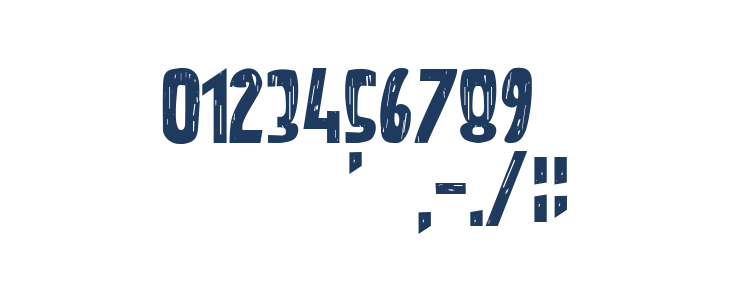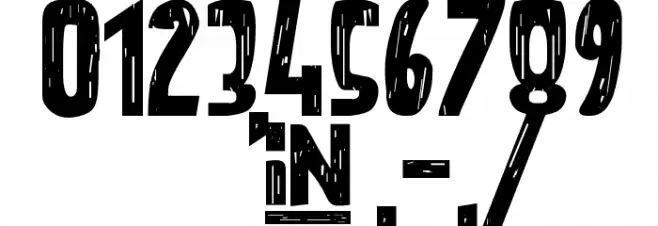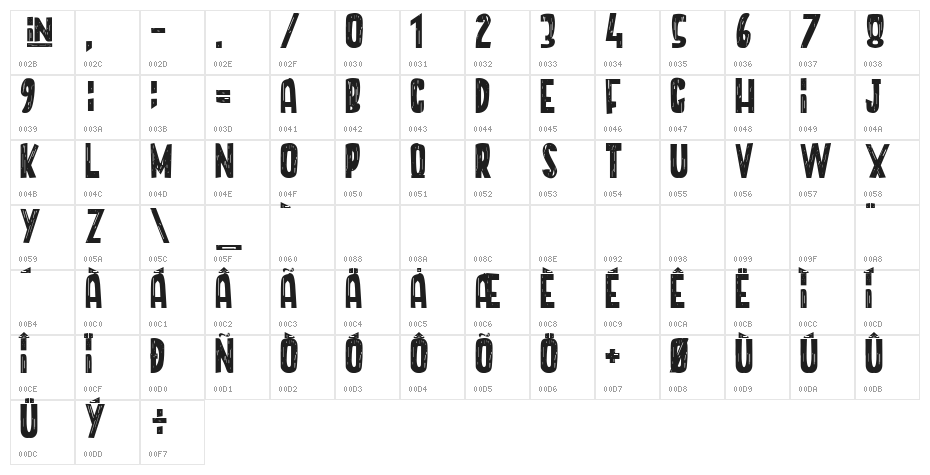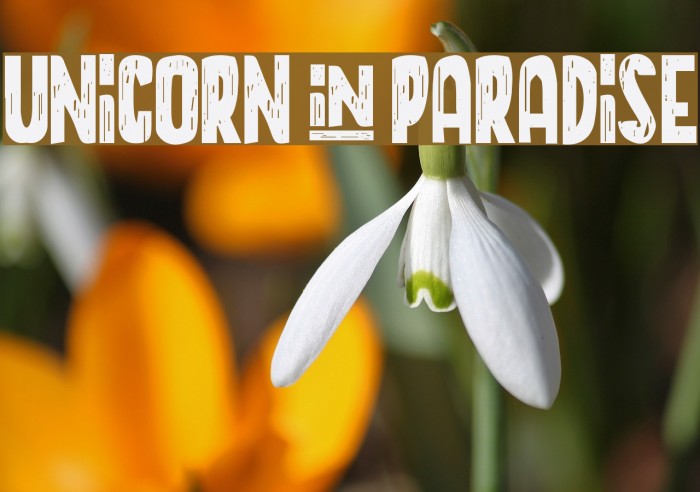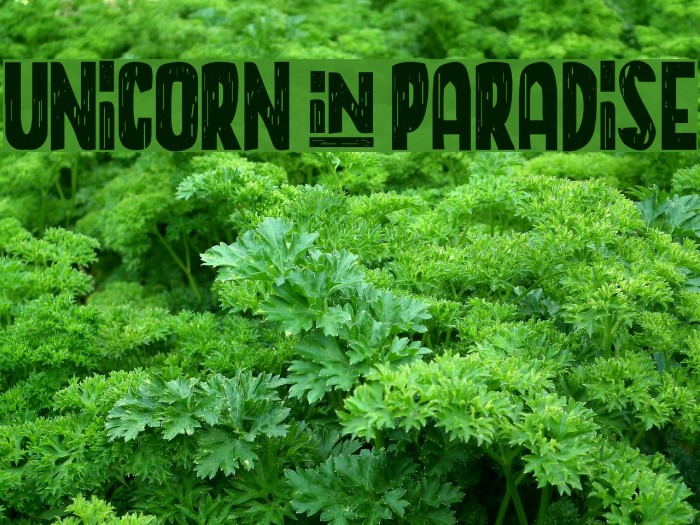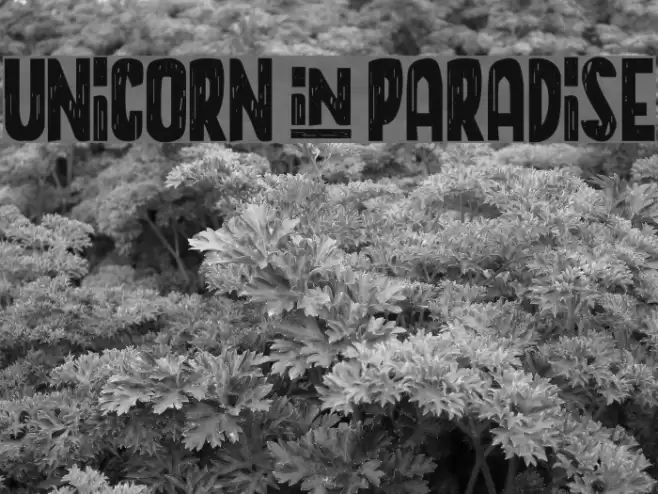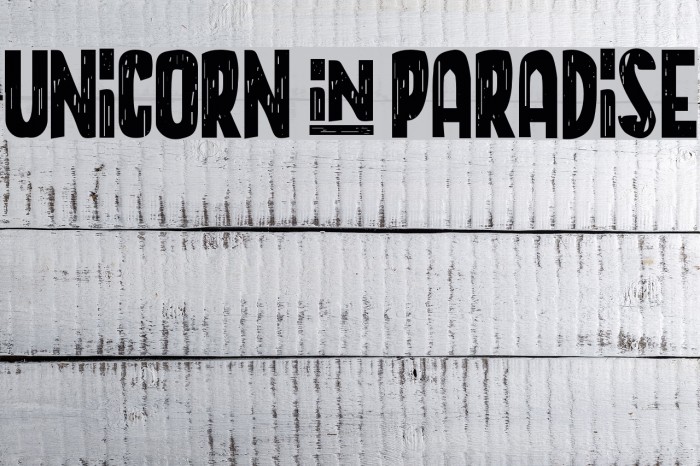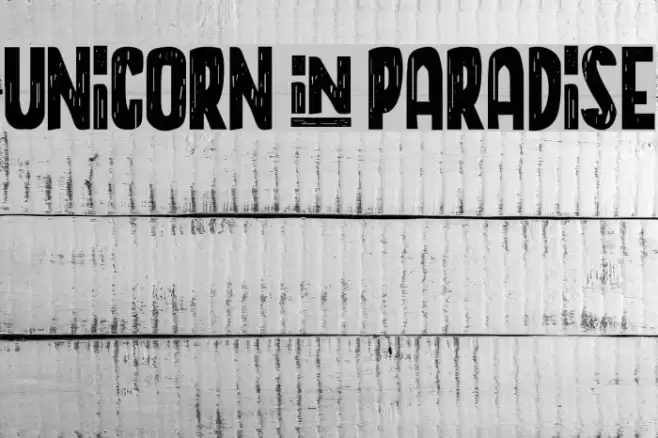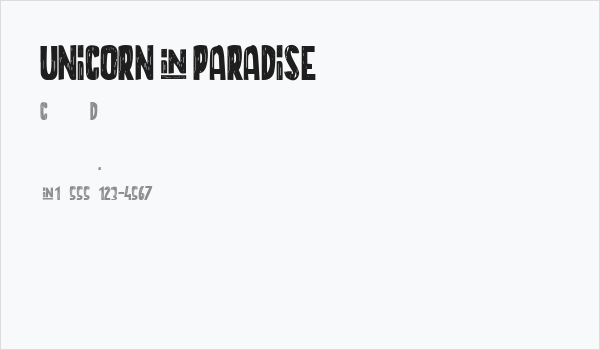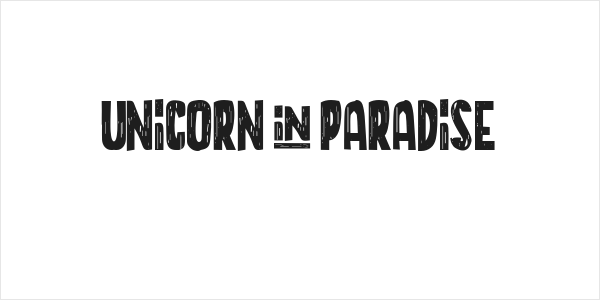
UNICORN+PARADISE Font
UNICORN+PARADISE Description
This font features a bold, distressed style with a strong, impactful presence. The characters are tall and narrow, with a slightly condensed width, giving them a commanding appearance. The distressed texture adds a vintage, worn-out look, making it ideal for projects that require a rustic or grunge aesthetic. The uppercase and lowercase letters maintain a consistent style, with the uppercase being more prominent. Numbers and special characters are designed to match the overall theme, ensuring uniformity across all text elements. The font's unique style makes it suitable for eye-catching designs.
| Proposed Projects | Ideal for posters, album covers, branding, and any project needing a bold, vintage look. |